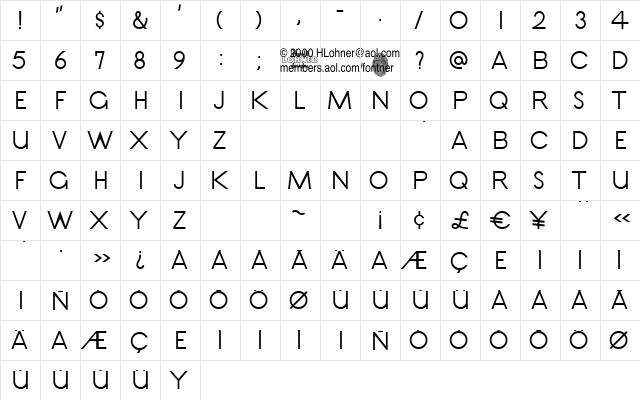
Le Film Letters
| Year | 1927 |
| Copyright | Le Film computer font v1.0 00 Harold Lohner "  "http://members.aol.com/fontner Based on the classic Art Deco font of the same name, originally designed by Marcel Jacno and released by Deberny & Peignot, 1927 |
Design Context for Le Film Typeface
Le Film is a composed and adaptable typeface that performs quietly and consistently across a wide range of design contexts.